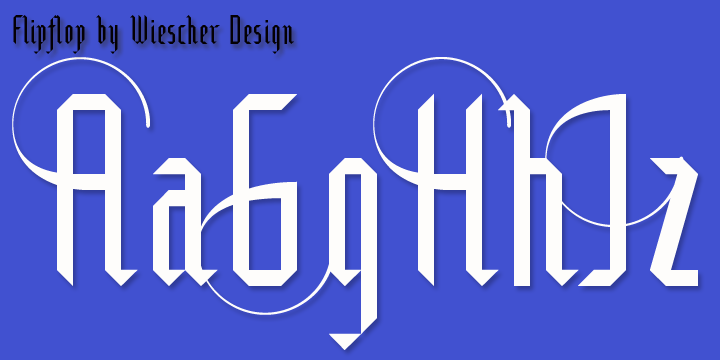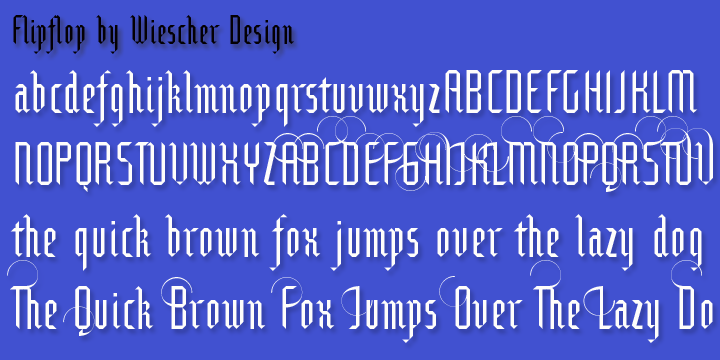
Flipflop
Font Family by Wiescher Design
This font makes the impression to be a blackletter font (Fraktur) but it really only is little squares and triangles stuck together in a flip or flop way to form the glyphs. Only a few times did I have to leave this system ? like for the degree or br